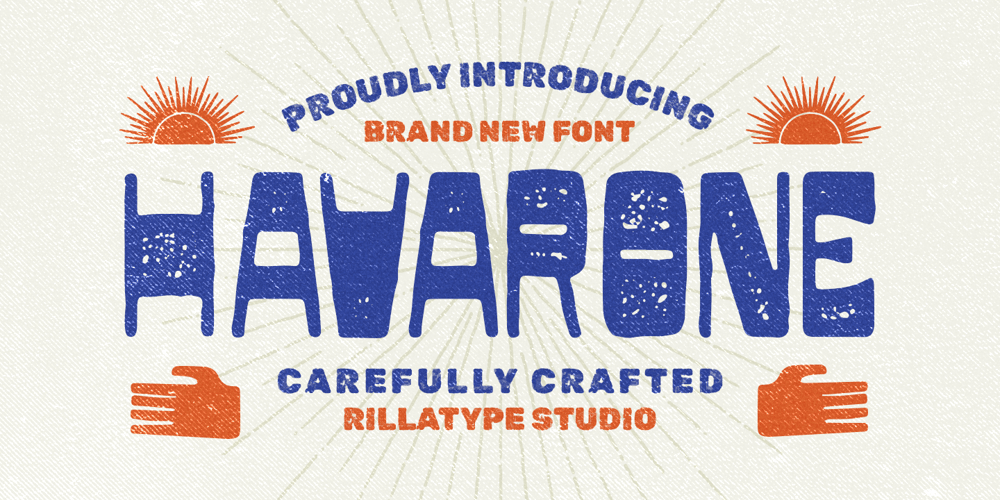
Havarone Font Family was designed by Gustian Agung Asprilla and published by Rillatype. Havarone contains 4 styles and family package options. Navarone, a dynamic display font, stands out with its versatility, offering four distinctive styles: Regular, Slant, Stamp, and Stamp Slant. Crafted with an all-caps character set, Navarone exudes a bold and impactful aesthetic, making it a perfect choice for a variety of design projects. Whether you opt for the clean lines of Regular, the dynamic edge of Slant, or the rugged authenticity of Stamp, Navarone brings creativity to the forefront. Elevate your designs with this font’s unique personality and explore the diverse possibilities it offers across different styles.